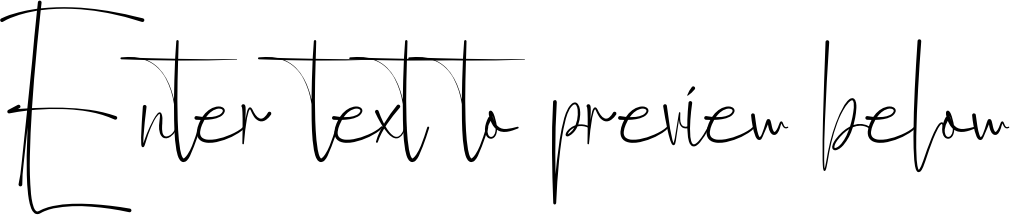
Anjany Sallentiny - Handwritten Font
Introducing Anjany Sallentiny - Handwritten Font Anjany Sallentiny is a delicate, elegant and flowing handwritten font. It has beautiful and well balanced characters and as a result, it matches a wide pool of designs. Add it to your most creative ideas and notice how it makes them come alive! FEATURES - TTF/OTF/WOFF - Swash - Ligatures - Uppercase and Lowercase letters - Numbering and Punctuations - Multilingual Support - Works on PC or Mac - Simple Installation - Support Adobe Illustrator, Adobe Photoshop, Adobe InDesign, also works on Microsoft Word Hope you Like it. Thanks.